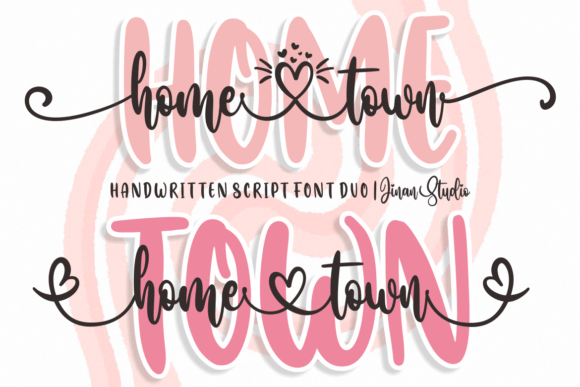
Introducing Home Town Duo Font, the ultimate solution for adding a touch of elegance and romance to your creative projects! Crafted with utmost care and attention to detail, this exquisite duo font (script and sans serif) is designed to cater to all your font needs, from Christmas card labels to captivating headlines.
Created by the talented jinanstd, Home Town Duo Font is more than just a font; it's a gateway to a world of endless possibilities. With its stylish and delicate design, this font is a true masterpiece that will captivate your audience and leave a lasting impression.
One of the unique features that sets Home Town Duo Font apart is its PUA encoding. This means that you have full access to a vast collection of stunning glyphs and swashes, allowing you to effortlessly customize and personalize your designs. Let your creativity run wild as you add flourishes and embellishments to create truly one-of-a-kind creations.
Whether you're designing a heartfelt Christmas card, a sophisticated invitation, or a striking headline, Home Town Duo Font is your secret weapon for creating stunning and eye-catching visuals. Its versatility knows no bounds, making it the perfect choice for any project, be it digital or print.
But Home Town Duo Font is more than just a tool; it's a source of inspiration. Its timeless and romantic vibe evokes a sense of warmth and nostalgia, perfect for projects that aim to create an emotional connection with your audience. Let your designs speak volumes as this font effortlessly conveys love, joy, and sentimentality.